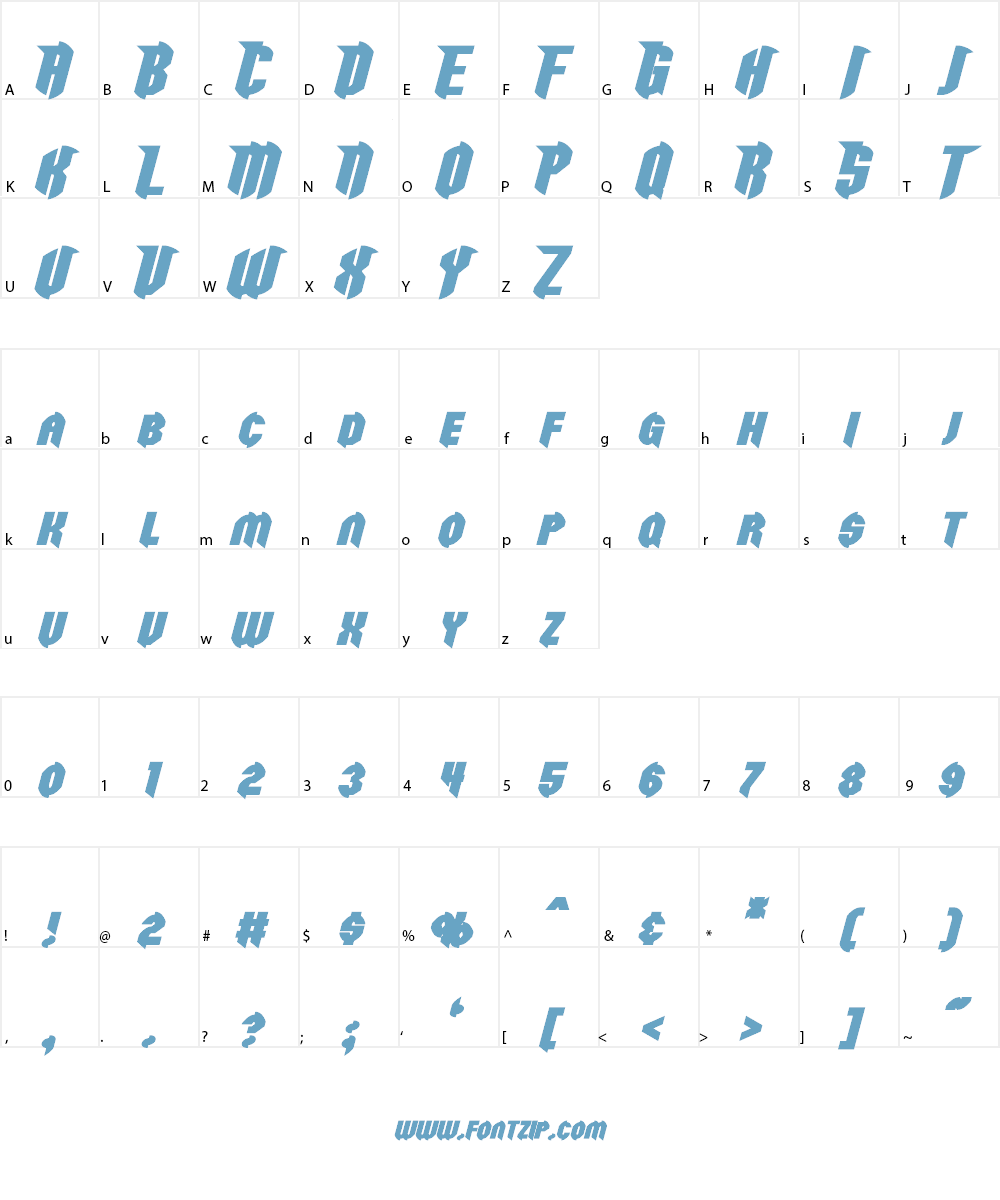
Based on the logo of the new "Beast Hunters" Transformers line. Includes extended characters, euro, and punctuation. The 'at' sign has been replaced with the Predacon faction symbol. Includes regular and hollow versions.